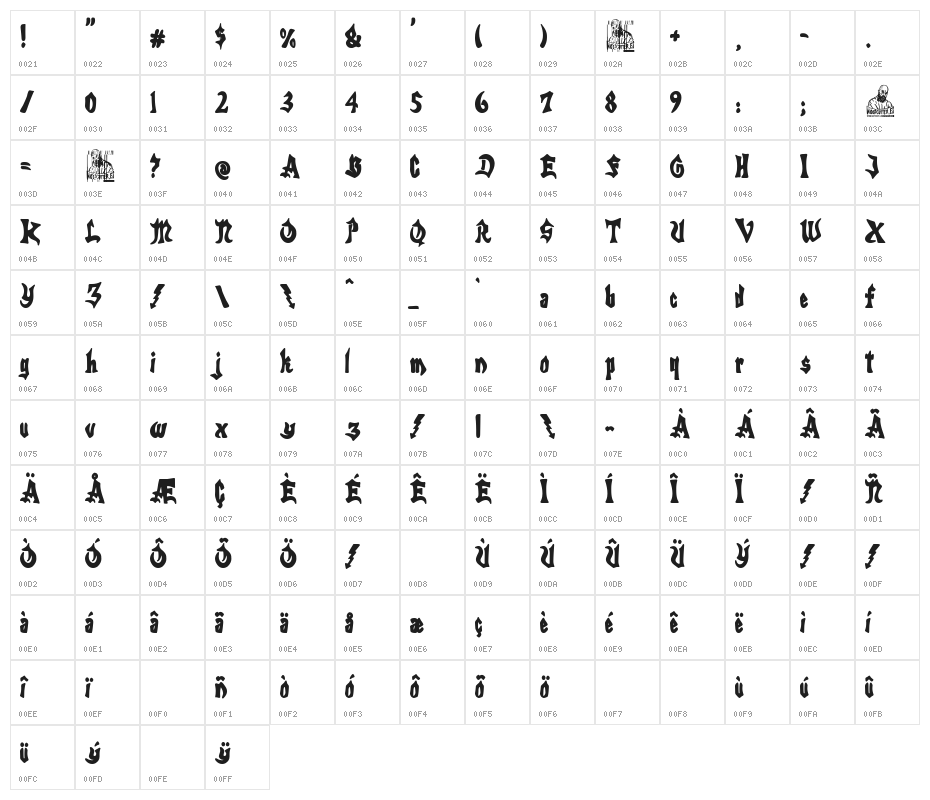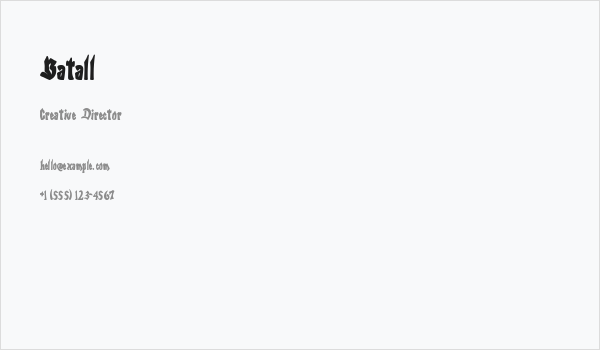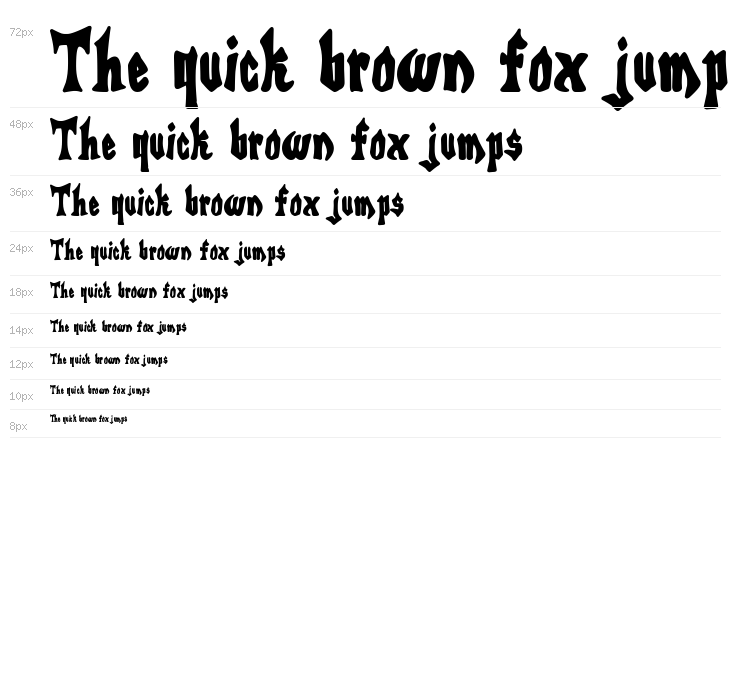
Batall Font
Batall Description
A dramatic, angular typeface with heavy strokes and ornamental, gothic-inspired forms. The characters feature sharp serifs and exaggerated curves, giving a bold and intense appearance. The overall style is reminiscent of medieval or blackletter calligraphy, with high contrast between thick and thin strokes.
| Overall Style | Decorative, Gothic, Dramatic |
| Use Case | Logos, Headlines, Posters, Themed graphics |
| Proposed Projects | Posters, horror or metal band logos, video game titles, Halloween event materials, tattoo designs. |